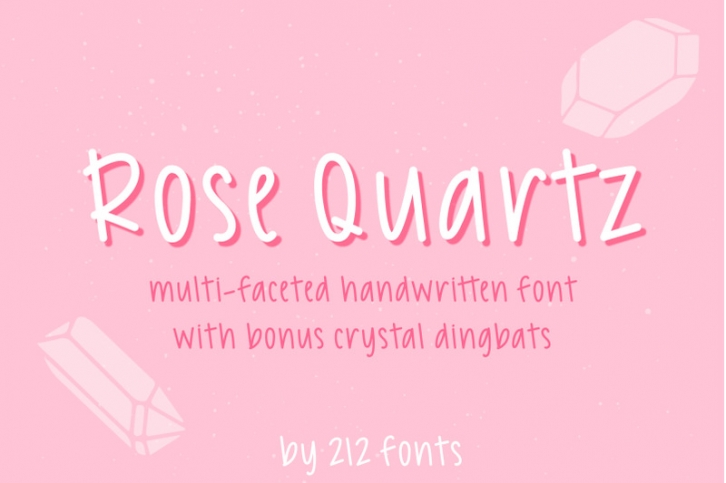
Rose Quartz is a multi-faceted, feminine font. Ultra legible and clean, this font is handwritten with love. Included in this purchase is 212 Crystals, a font of 165 dingbat of crystal shapes that pair perfectly with Rose Quartz.